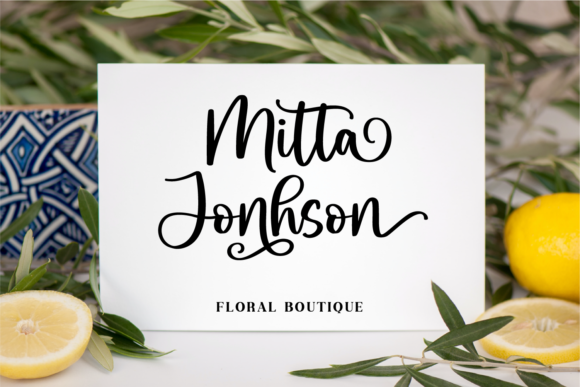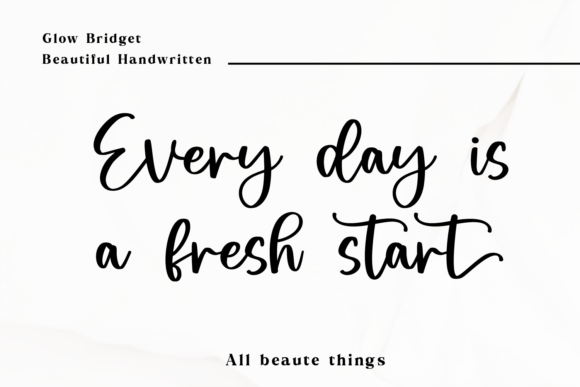
Glow Bridget Font
db-ku.com - Script & Handwritten -- Glow Bridget is beautiful handwriting font, featuring a modern and elegant vibe. It can be used for various purposes, such as headings, signatures, logos, wedding invitations, t-shirts, and more. It is PUA encoded which means you can access all of the amazing glyphs and ligatures with ease!